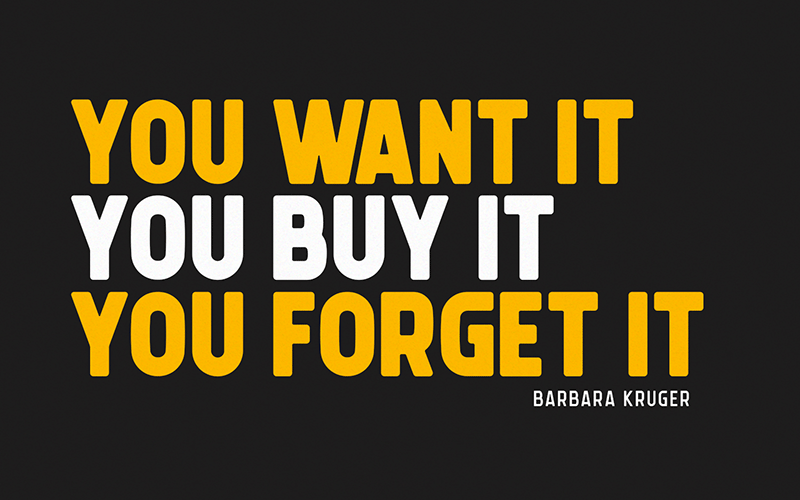
Preview and download Mike Sans Font. Created by Wahyu Rahmawan in Basic Sans serif styles with Free for personal use license.
This font is FREE for Personal Use Only. GET FULL VERSION ONLY FOR $1 - at https://www.onedollarfont.com/mike-sans Mike Sans is a modern sans serif with a square style. It comes in 8 weights, clean and modern glyphs, thereby creating more variability. Lowercases is available for full version. Weights: Thin, ExtraLight, Light, Book, Regular, Bold, ExtraBold, Heavy If you need a commercial license, please contact me at hello@onedollarfont.com Thank you Wahyu |